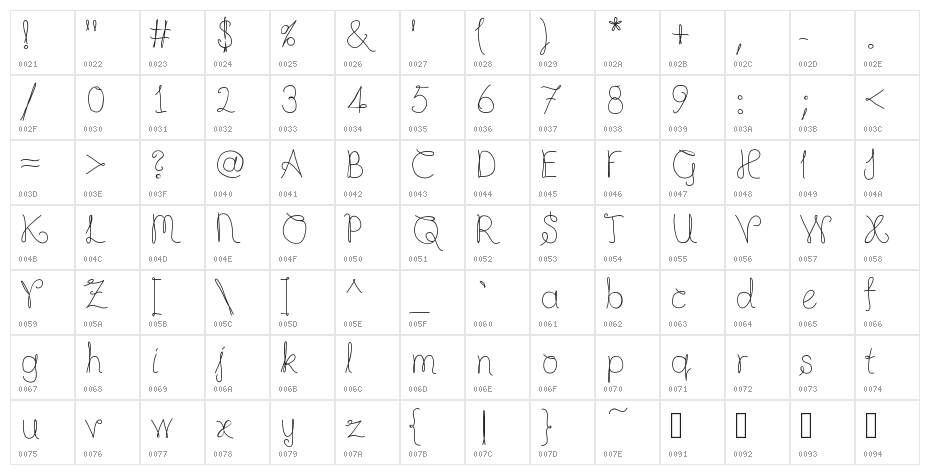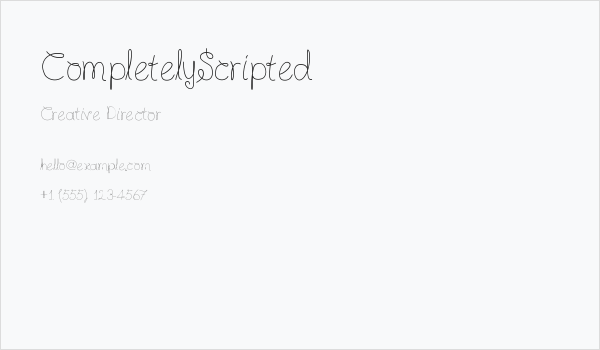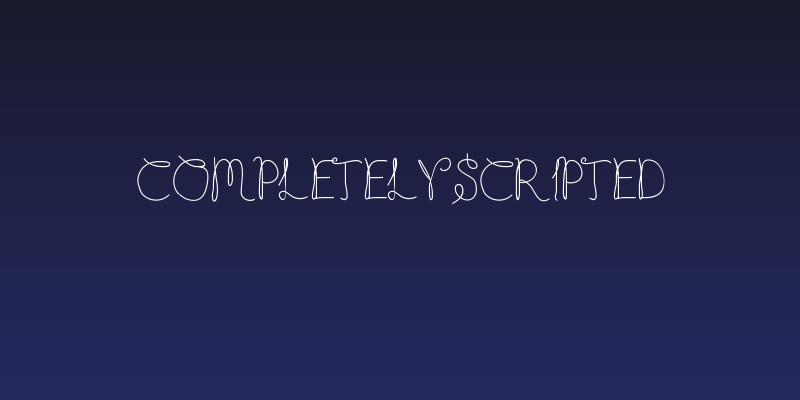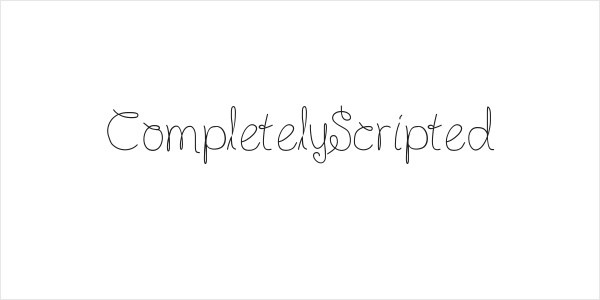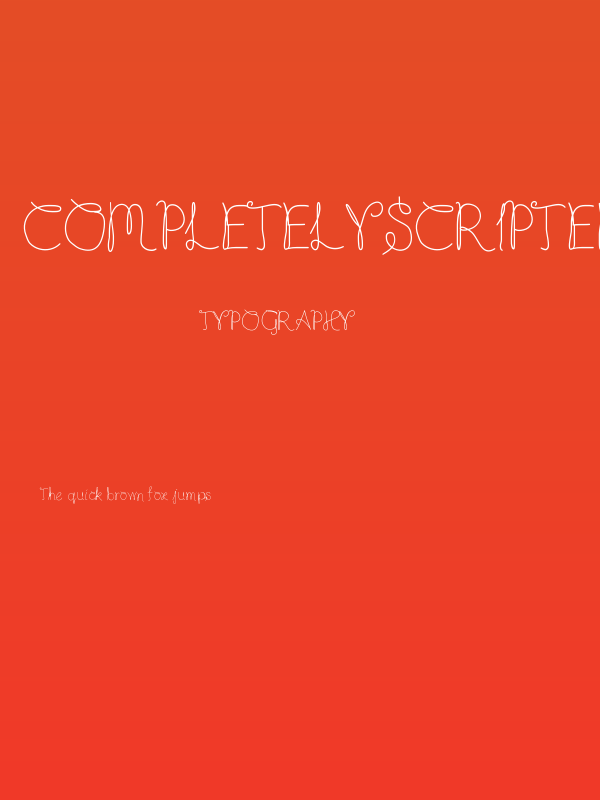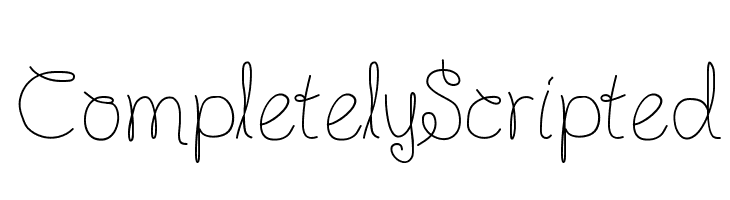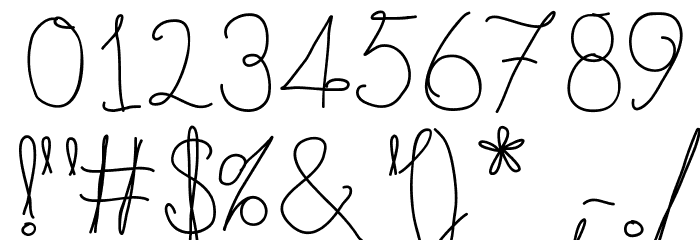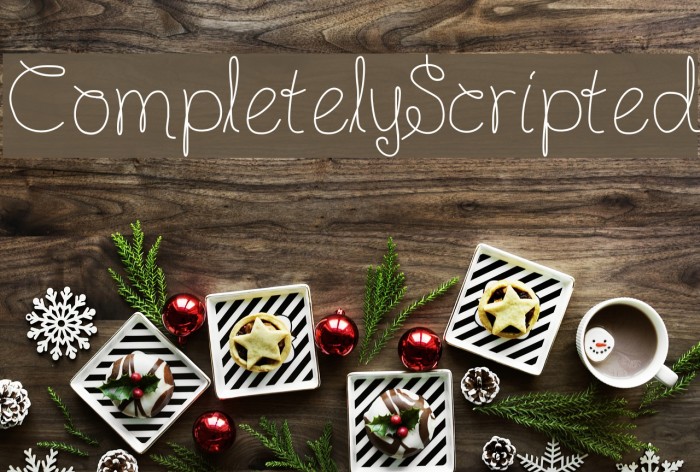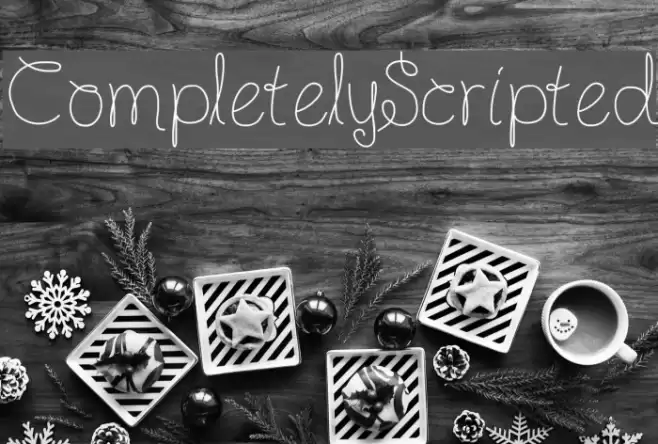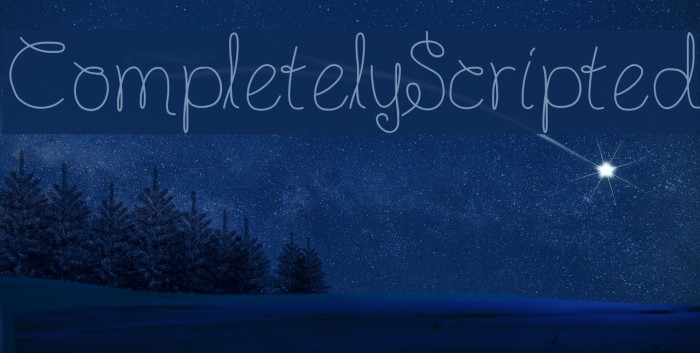
CompletelyScripted Font
CompletelyScripted Description
This font features a whimsical and playful script style, characterized by its flowing, interconnected letters. The strokes are thin and consistent, creating an elegant yet casual appearance. Each character has a unique flair, with loops and curls that add a touch of personality. The uppercase letters maintain a consistent height, while the lowercase letters vary slightly, enhancing the font's dynamic and lively feel. Numbers and special characters follow the same playful design, making this font versatile for various creative projects.
| Proposed Projects | Ideal for greeting cards, invitations, playful branding, and creative social media graphics. |